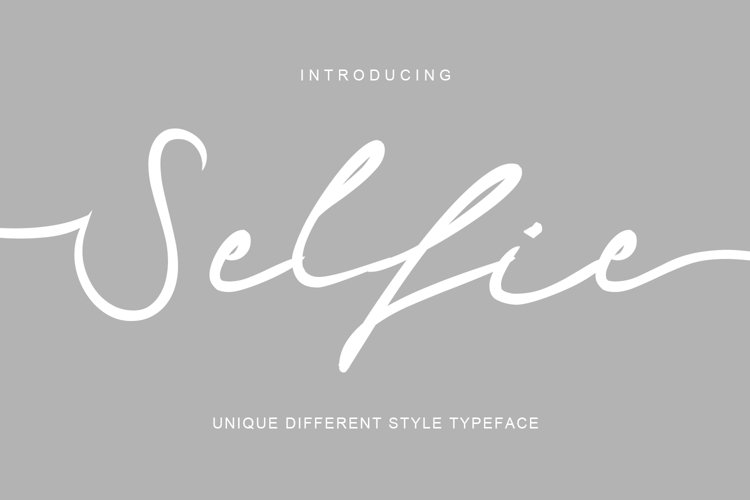
Selfie is a sweet and cursive handwritten font. It looks stunning on wedding invitations, thank you cards, quotes, greeting cards, logos, business cards and every other design which needs a handwritten touch.